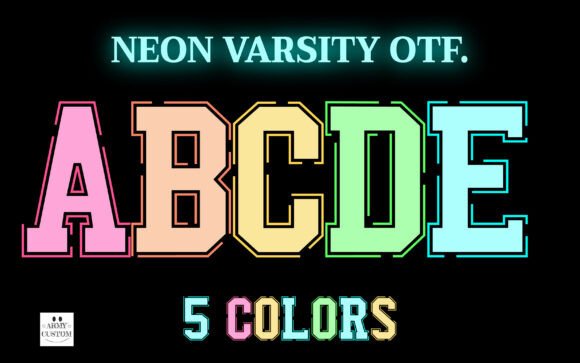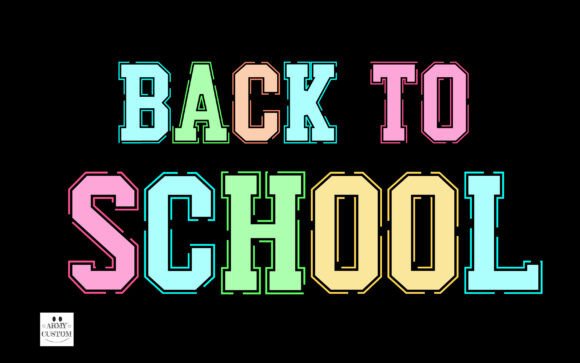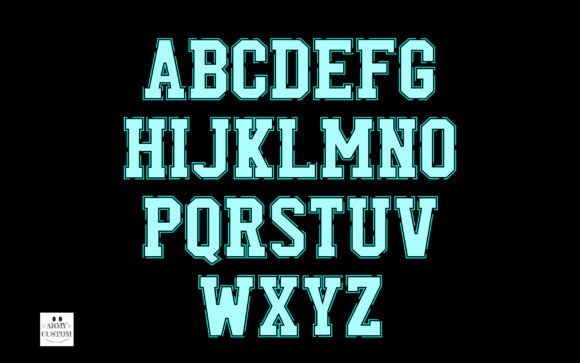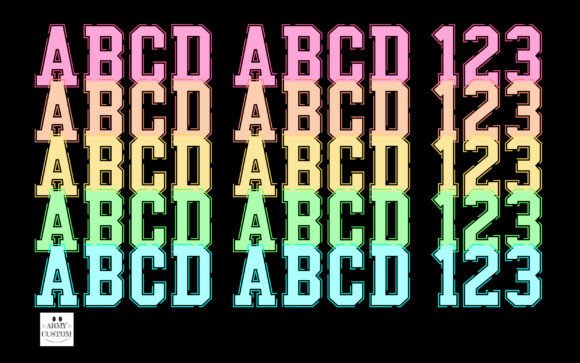
Neon Varsity Font
Immerse yourself in the vibrant, electrifying allure of the Varsity Letters and Numbers neon font. This distinctive typeface is an absolute delight for Sublimation designs, effortlessly enhancing the appeal of unique merchandise like shirts, mugs, and so much more. Infused with a vivacious spirit, each letter and number in this font set pulsates with an irresistible neon charm. Discover the youthful energy and bold sophistication that Varsity Letters and Numbers infuse into every design. Illuminate your creative journey with the radiance of this captivating neon font.